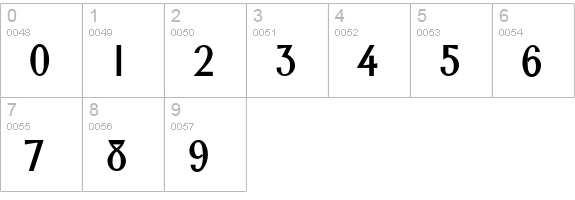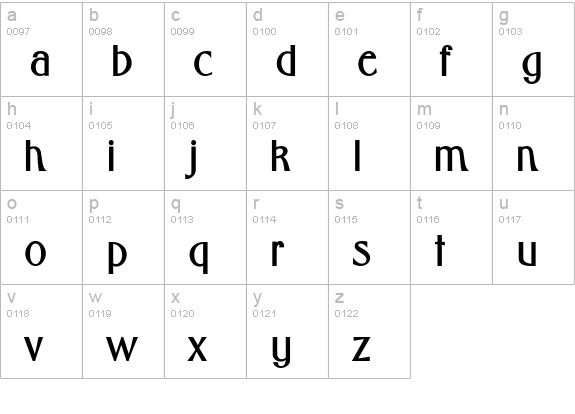
CapatolaSSK Bold Font Details
CapatolaSSK Bold is a strong, high-contrast variant in the CapatolaSSK typeface family \xE2\x80\x94 well suited to headlines, attention-grabbing titles, and strong calls-to-action.
CapatolaSSK Bold font is a versatile and eye-catching typeface that exudes confidence and modernity. With its bold and striking design, this font is perfect for making a strong statement in your projects. Whether you're designing posters, logos, or headlines, CapatolaSSK Bold font will command attention and leave a lasting impression. The best part is that CapatolaSSK Bold font is available for free download at FontsMarket.com. This means you can easily access this stylish font and incorporate it into your design work without any cost. Don't miss out on the opportunity to enhance your projects with the bold and impactful CapatolaSSK Bold font - get your free download today!